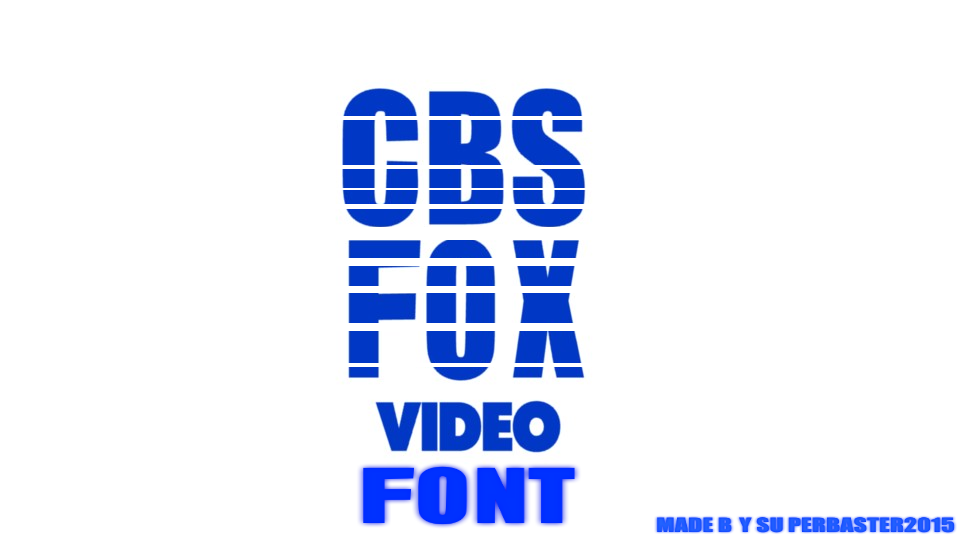
I Actually Used The Font "Impact" And Then Modified The F And C So It Will Look More Like The Original Logo
This Font Will Also Be Used For My Upcoming CBS FOX Improved Remakes
Sorry If The Font May Look Messed Up,That Was The Best That I Could Do!
Not bad, but it looks a bit inaccurate..